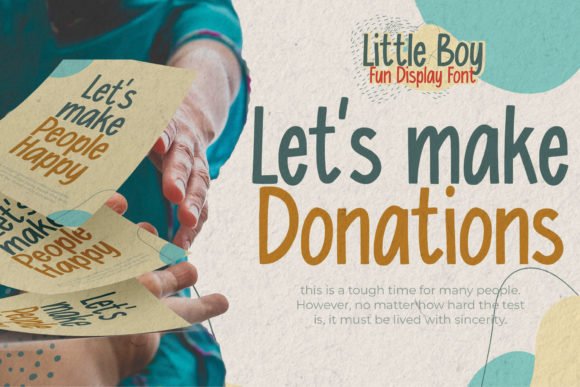
Little Boy Font
Little Boy is a fun display font with cute and crafty characters and a natural texture. This typeface is great for watermarks on photography, logos, branding, invitations, advertisements, product packaging, stationery, wedding designs, labels, product packaging, special events, or anything else.
Little boy has a natural, hand-drawn feel that makes it perfect for projects that need a natural touch and beautiful details.
This font was inspired by food logos combined with cute, crafty styles, and it will surely fulfill any of your designs needs. It suits sporty themes, logotypes, wordmarks, and any creative project you have coming up.